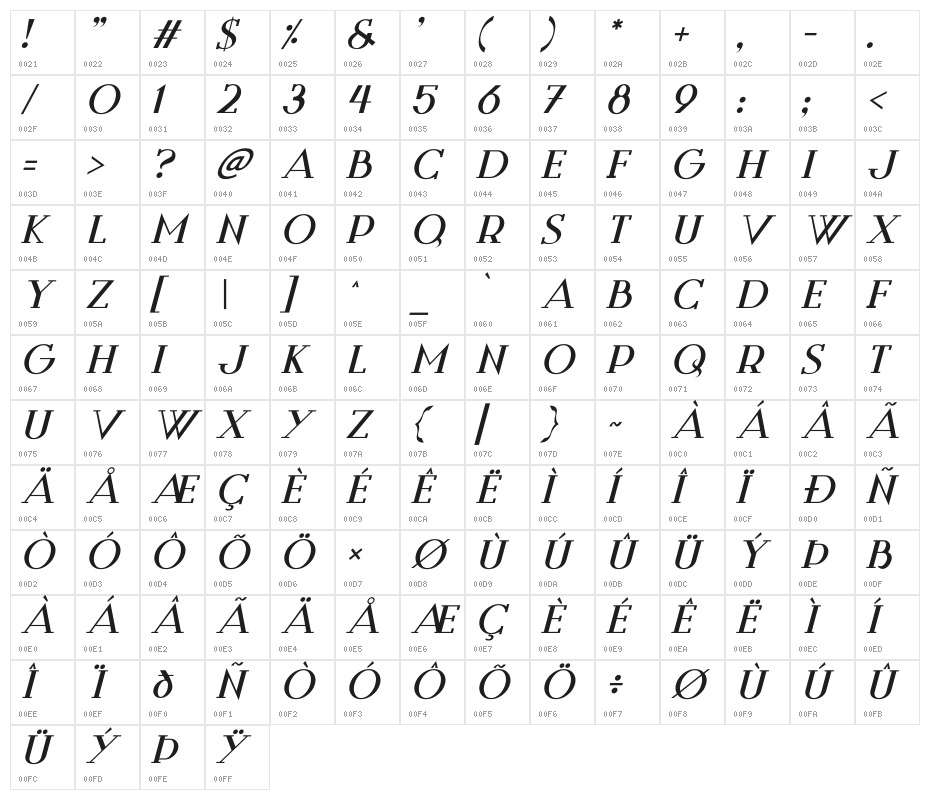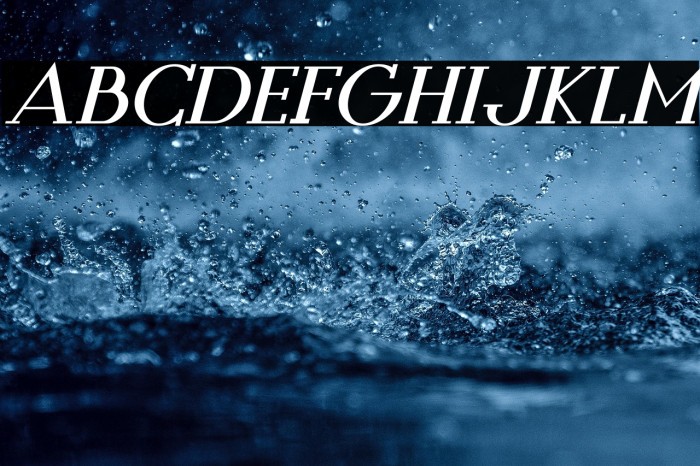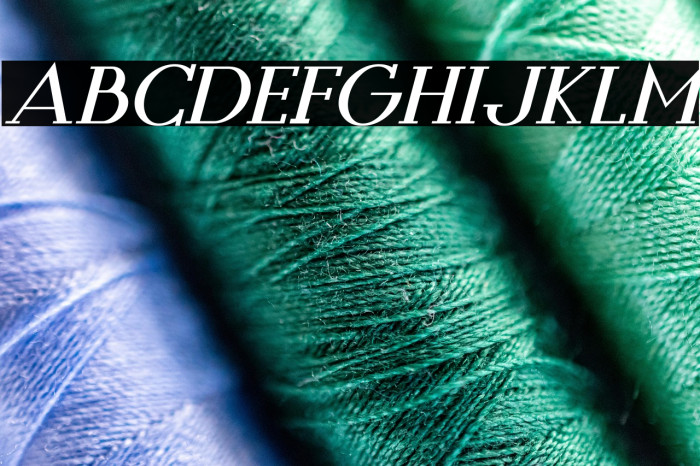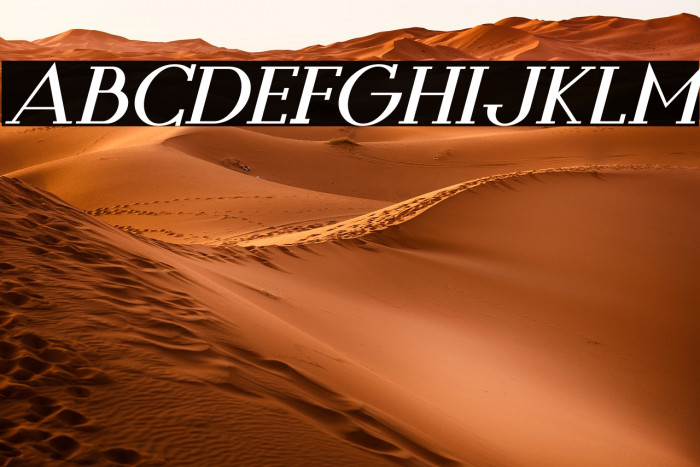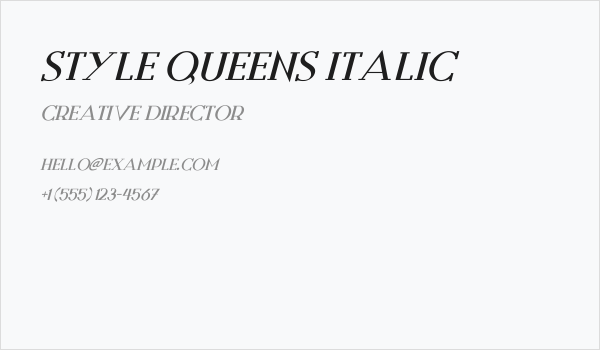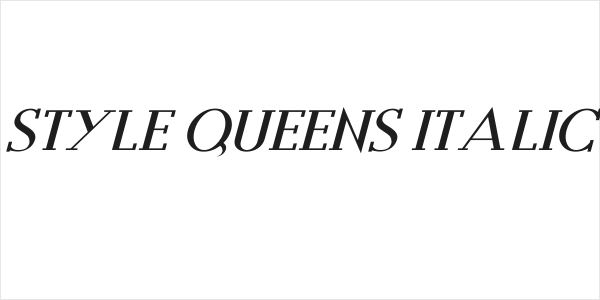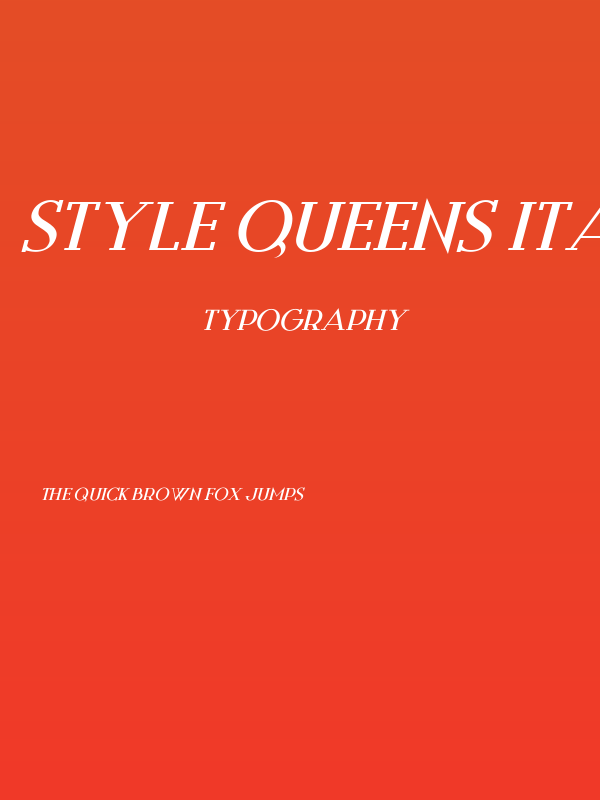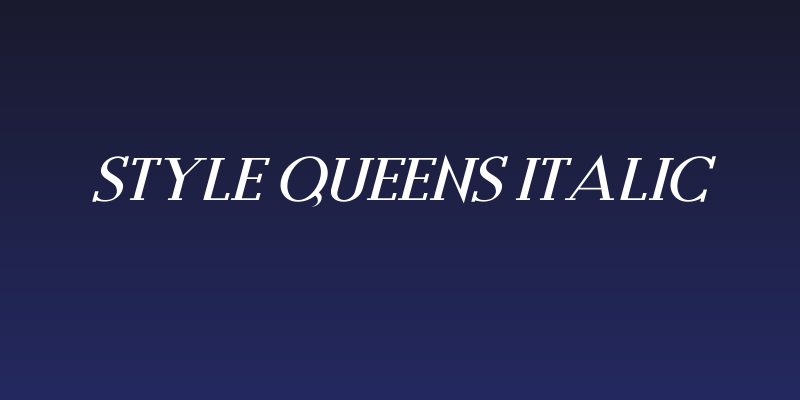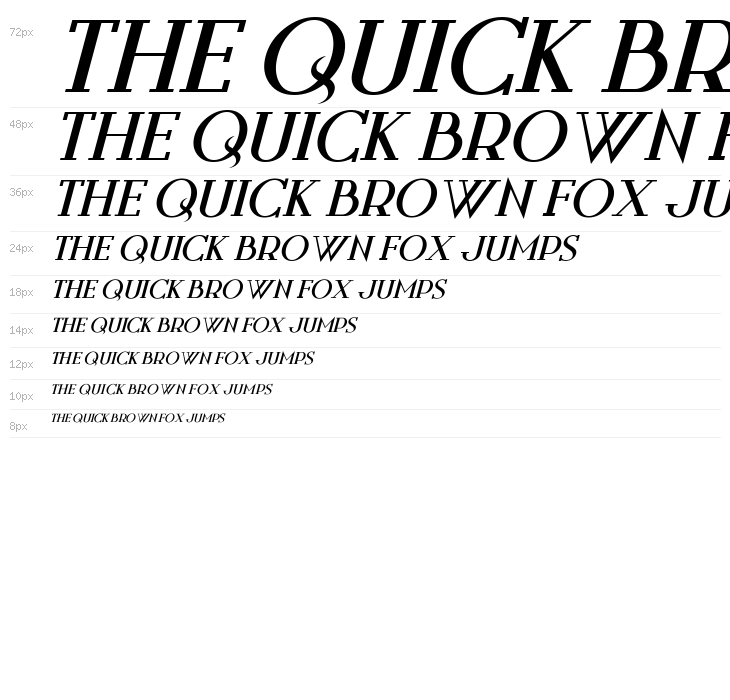
Style Queens Italic Font
Style Queens Italic Description
This elegant and sophisticated typeface features a classic italic style with a refined and graceful appearance. The letters are slanted, giving a sense of motion and fluidity, while maintaining a strong and structured form. The strokes are moderately thick, providing a balanced contrast that enhances readability. The serifs are delicately crafted, adding a touch of traditional charm to the overall design. This font exudes a timeless quality, making it suitable for a variety of formal and high-end applications. The numerals and special characters are designed with the same attention to detail, ensuring consistency throughout the typeface.
| Proposed Projects | Ideal for wedding invitations, luxury branding, editorial design, and elegant packaging. |